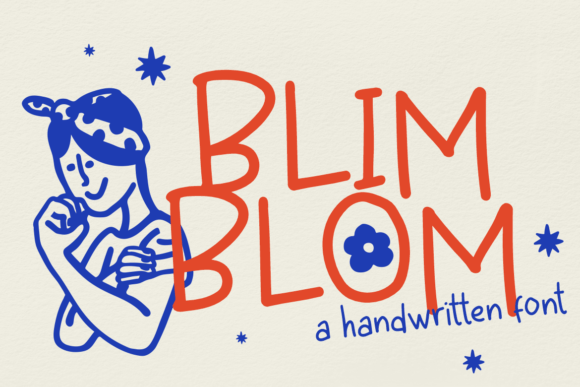
Introducing Blimblom: The Playful Handwriting Font That Brings Childhood Creativity to Life
The Magic of Blimblom
Blimblom is more than just a font; it’s an experience. This playful typeface features rough, scribble-like letters that mimic the carefree strokes of a child’s drawing. It’s perfect for projects that need a touch of innocence and fun. Each letter is meticulously crafted to convey a sense of whimsy and informality, giving your designs a unique, hand-drawn charm.
What I Love About Blimblom
- ✨ Unique and Playful Style: Blimblom’s childlike style is ideal for projects aimed at younger audiences or those that want to evoke a sense of joy and creativity.
- ✅ Versatility: Its rough, sketch-like quality gives your designs an authentic, personal touch, making it suitable for a wide range of applications, from branding and packaging to book covers and greeting cards.
- 🎨 Easy to Pair: Blimblom pairs well with a variety of fonts, allowing you to create stunning visual hierarchies and add depth to your designs.
Honest Review: The Not-Perfect-but-Almost-Perfect Font
While Blimblom is a fantastic font, it’s not without its quirks. Here are a few things to keep in mind:
- 🤔 Limited Formality: Blimblom’s playful nature makes it less suitable for formal projects or those requiring a high level of professionalism.
- ⚠️ Legibility at Small Sizes: Like many script fonts, Blimblom can become less legible at very small sizes. It’s best used at larger sizes where its unique charm can shine.
The Story Behind Blimblom
Blimblom was inspired by the vibrant drawings of children. Its creator, a type designer with a passion for childhood creativity, wanted to capture the essence of carefree drawing and translate it into a font. The result is a typeface that brings joy and whimsy to any design.
| What makes Blimblom unique? | Blimblom’s unique, hand-drawn style and rough, scribble-like letters set it apart from other fonts. |
| Is Blimblom suitable for body text? | While Blimblom can be used for body text, it’s best suited for headings and short paragraphs due to its playful and decorative nature. |